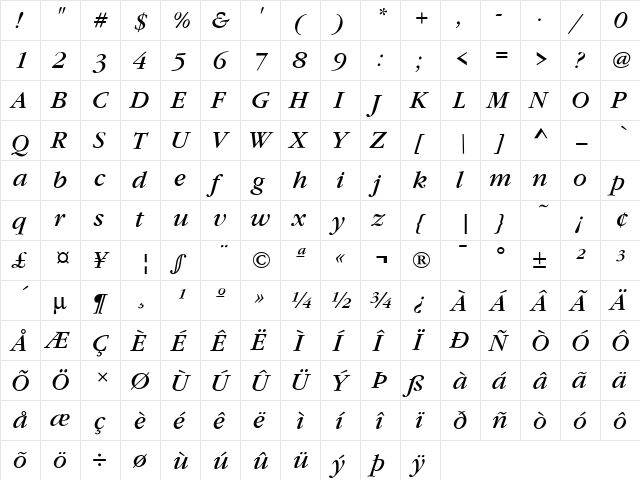
Garamond ITC T Book Italic
Design Context for Garamond ITC T Typeface
Garamond ITC T offers clean, dependable letterforms without strong stylistic allegiance, making it a practical choice for designers who need flexibility. The dynamic lean of this cut emphasises speed and emphasis in any layout.
Pro Tip: Try Garamond ITC T for annotation and caption copy alongside an upright companion — the contrast in angle creates a dynamic but ordered typographic system.